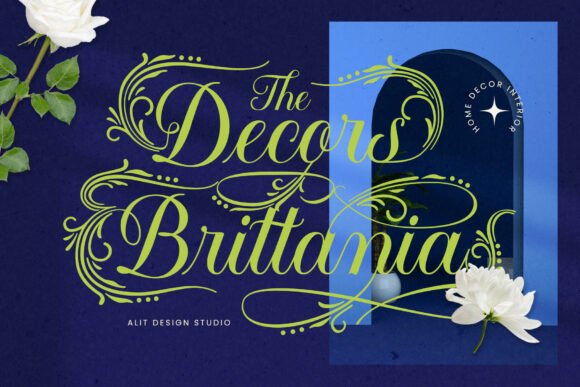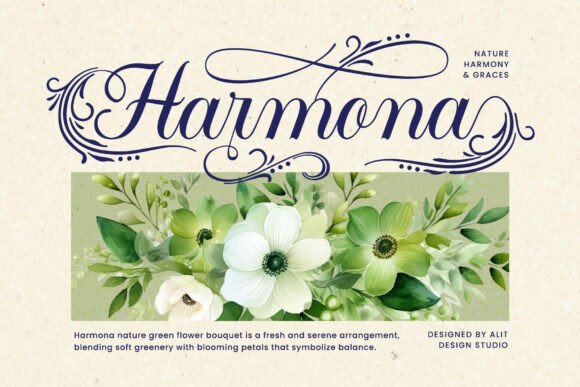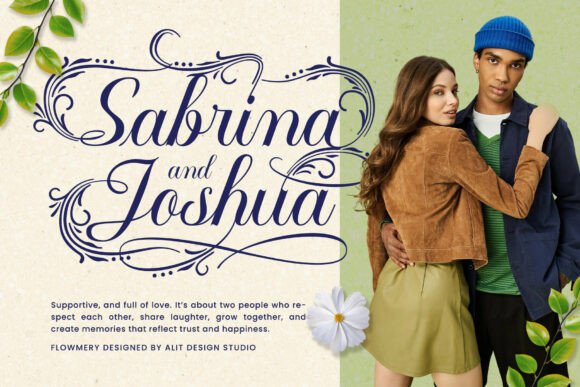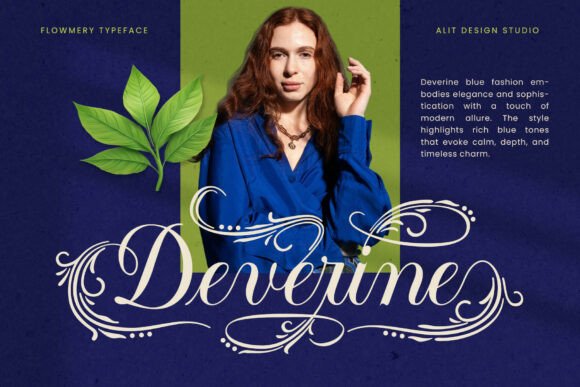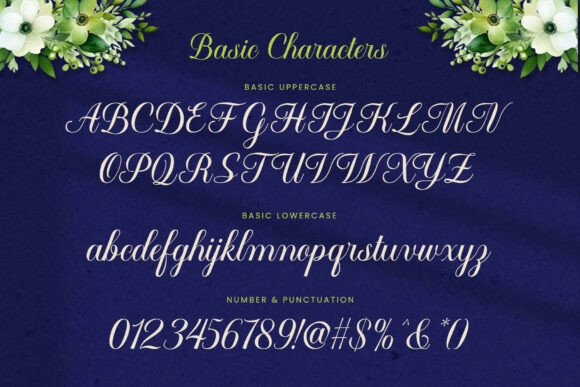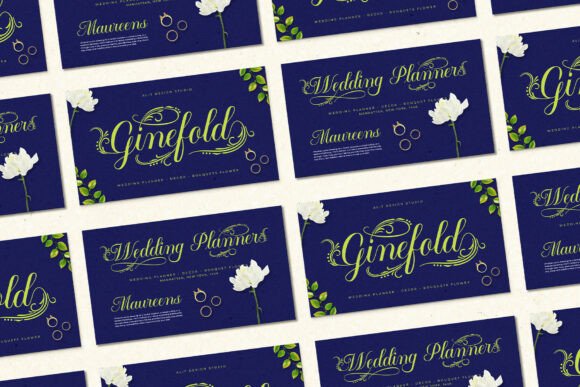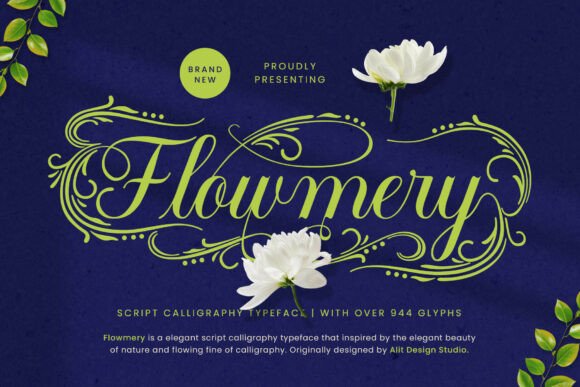
Flowmery Font: Elevate Your Designs with Elegant Calligraphy
Are you searching for a font that embodies the beauty of nature and the sophistication of fine calligraphy? Look no further than Flowmery, a stunning script typeface that is sure to elevate your designs to new heights. In this article, we’ll explore the features and benefits of Flowmery, and why it’s the perfect choice for designers and crafters looking to add a touch of elegance to their projects.
Introducing Flowmery: A Naturally Elegant Calligraphy Script
Flowmery is a meticulously designed script typeface that draws inspiration from the delicate beauty of nature and the timeless art of fine calligraphy. With its elegant and flowing lines, this font is perfect for projects that require a touch of sophistication and natural charm. Whether you’re designing a wedding invitation, a brand logo, or product packaging, Flowmery provides the versatility and creativity you need to make your designs stand out.
A Complete Typographic Toolkit
Flowmery is more than just a font; it’s a complete typographic toolkit. With an extensive collection of over 944 glyphs, this font offers a vast playground for creativity. Each letter is designed to connect seamlessly, creating a fluid and harmonious rhythm in your text. The numerous alternate characters, swashes, and ligatures allow you to craft truly unique and custom-looking designs that reflect your personal style.
Key Features of Flowmery
- Extensive Glyph Collection: With over 944 glyphs, Flowmery provides a wide range of creative possibilities.
- Seamless Connections: Each letter is designed to connect smoothly, creating a fluid and harmonious rhythm in your text.
- Alternate Characters and Swashes: Add a touch of elegance with numerous alternate characters, swashes, and ligatures.
- Versatility: Perfect for a variety of projects, including wedding invitations, brand logos, product packaging, and more.
Flowmery is the perfect choice for designers and crafters looking to add a touch of elegance and sophistication to their projects. With its natural and flowing lines, this font is ideal for:
- Wedding Invitations: Create enchanting and memorable wedding invitations that set the tone for a special day.
- Brand Logos: Establish a strong brand identity with a custom logo that reflects your values and personality.
- Product Packaging: Elevate your product packaging with a touch of elegance and sophistication.
Why Choose Flowmery?
With so many fonts available, why choose Flowmery? Here are just a few reasons why this font stands out:
- Unique and Customizable: With its extensive glyph collection and alternate characters, Flowmery allows you to create truly unique and custom-looking designs.
- Elegant and Sophisticated: This font embodies the beauty of nature and the sophistication of fine calligraphy, making it perfect for projects that require a touch of elegance.
- Versatile: Flowmery is perfect for a variety of projects, from wedding invitations to brand logos and product packaging.
In conclusion, Flowmery is a stunning script typeface that is sure to elevate your designs to new heights. With its elegant and flowing lines, extensive glyph collection, and versatility, this font is perfect for designers and crafters looking to add a touch of sophistication and natural charm to their projects. Whether you’re designing a wedding invitation, a brand logo, or product packaging, Flowmery provides the creativity and flexibility you need to make your designs stand out.